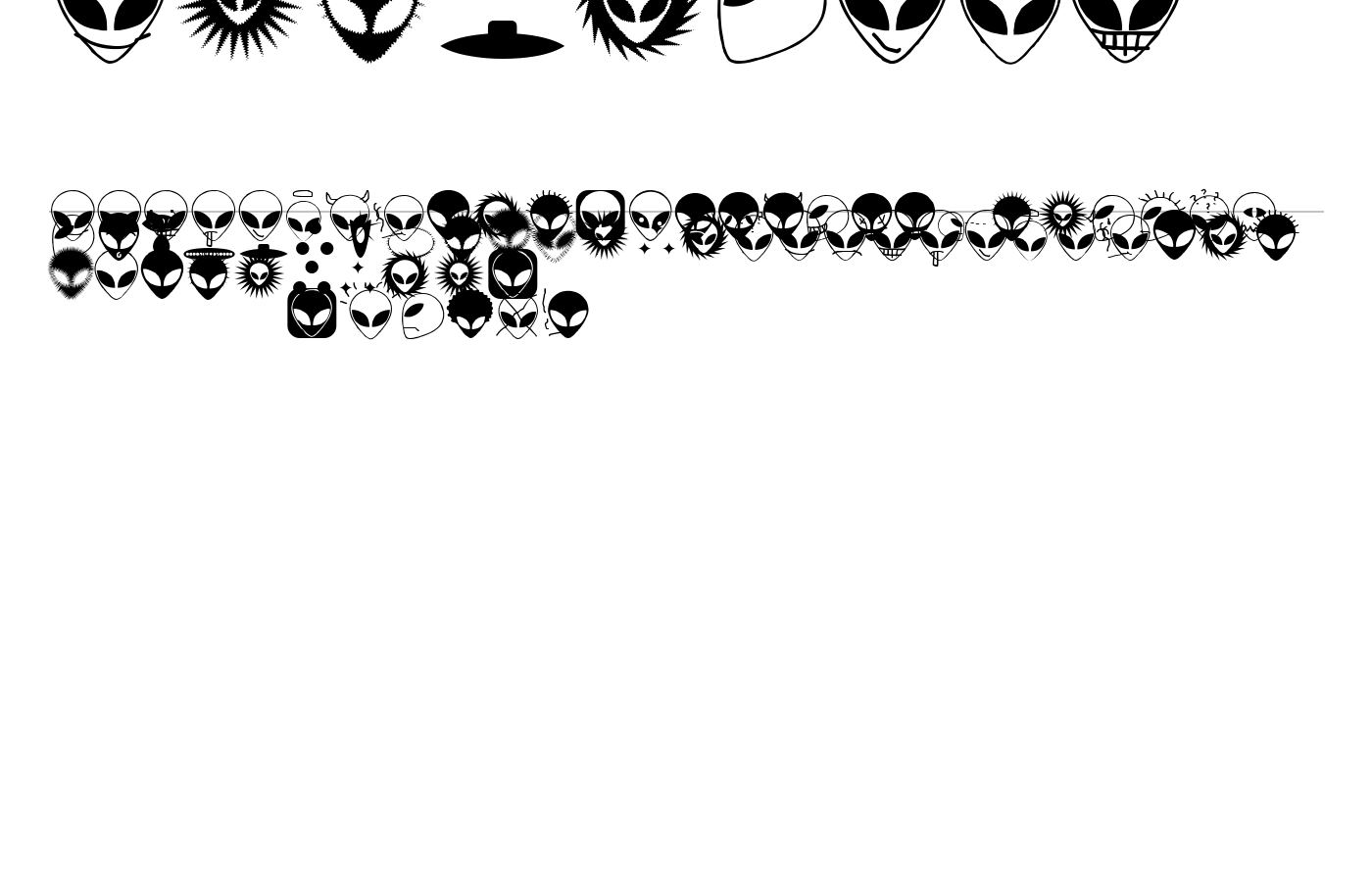
Alienator is a unique symbolic font composed entirely of alien and UFO-themed icons, rather than traditional letterforms. It features bold, black silhouettes with varying shapes and styles, offering a playful and futuristic vibe that suits sci-fi projects, novelty graphics, and themed branding. This font is best used for eye-catching headlines, logos, or decorative purposes where a space-age or extraterrestrial feel is desired.
Alienator Font
About Alienator Font